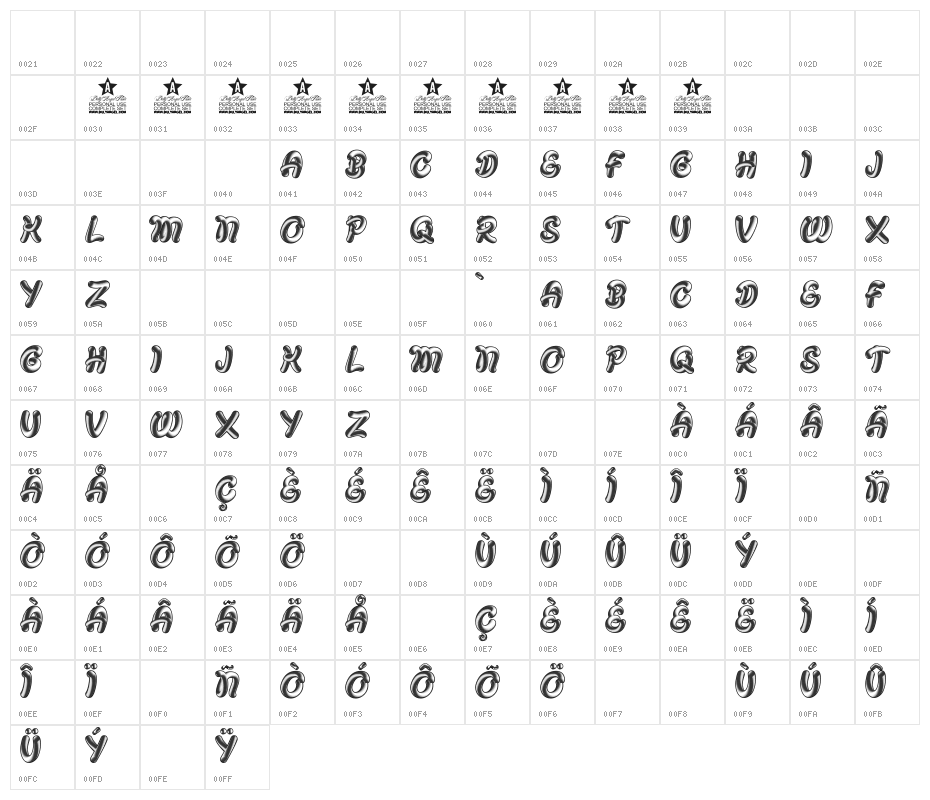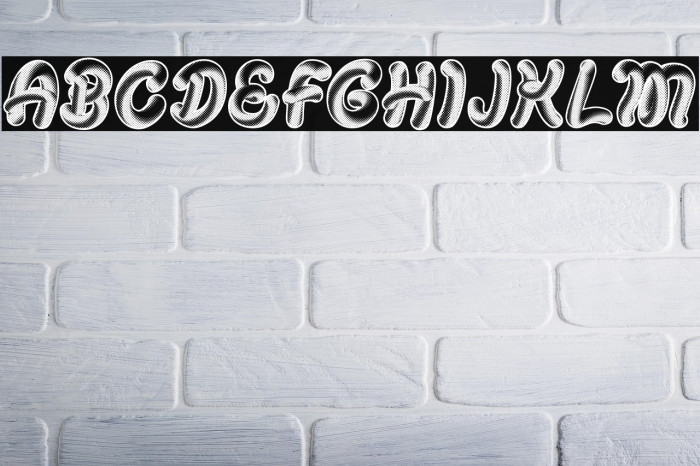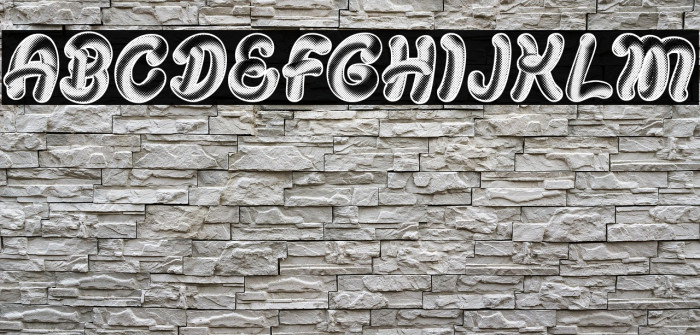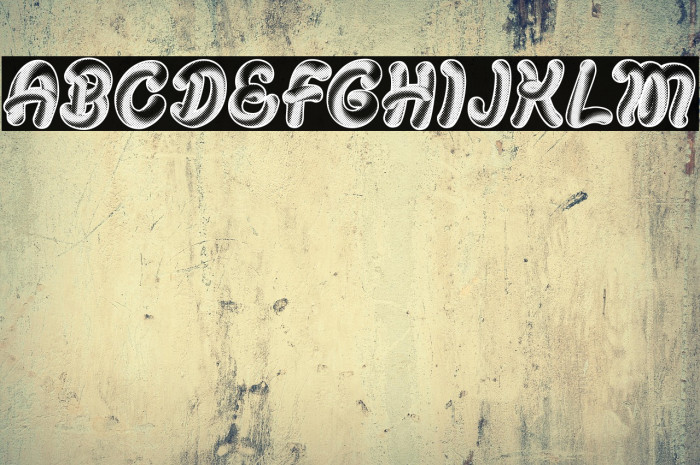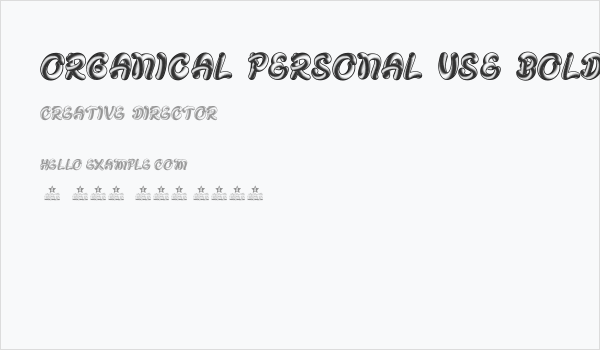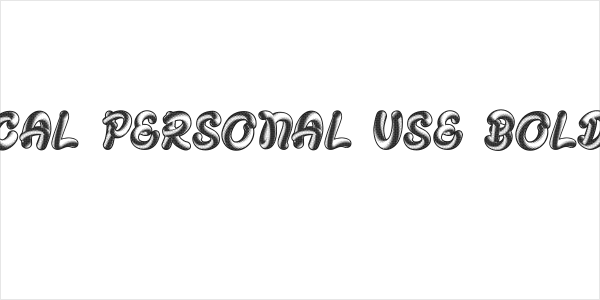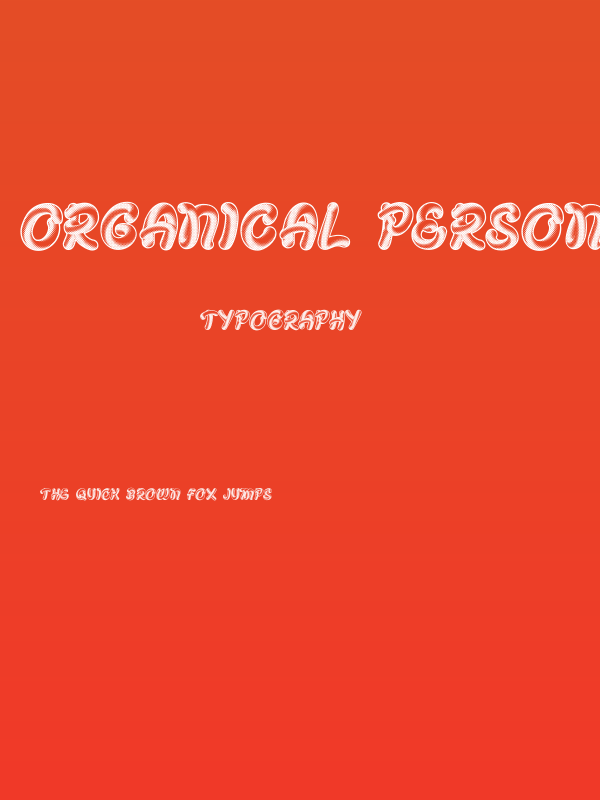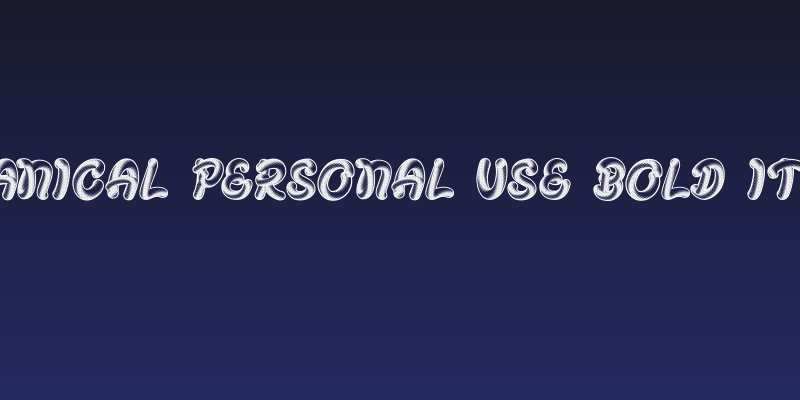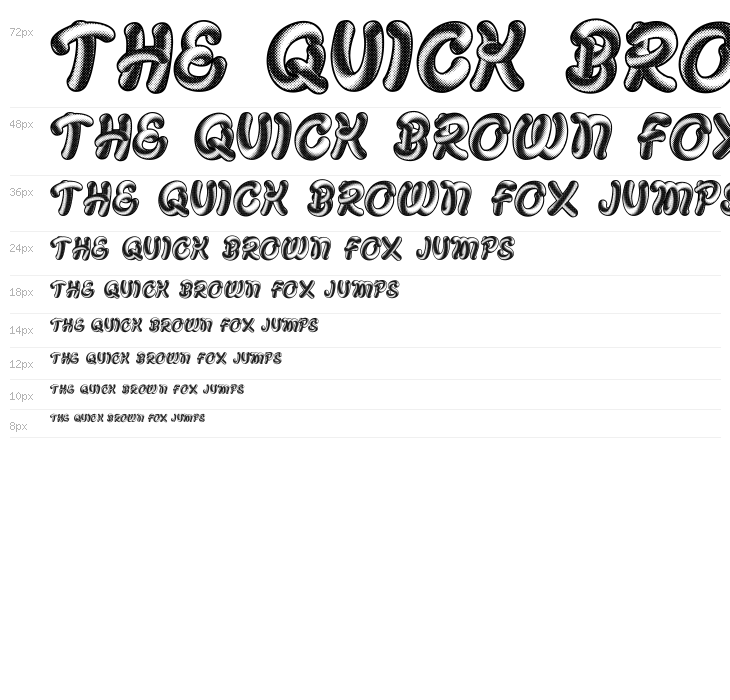
ORGANICAL PERSONAL USE Bold Italic Font
ORGANICAL PERSONAL USE Bold Italic Description
This font features a bold and italicized style with a unique, organic appearance. The letters are rounded and have a three-dimensional effect, giving them a playful and dynamic look. The shading within each character adds depth and a sense of movement, making the font stand out. Its decorative nature is enhanced by the use of bold strokes and italic slant, creating a lively and engaging visual experience. The font maintains a consistent style throughout, with each letter exhibiting a similar level of embellishment and curvature.
| Use Case | Logos, Posters, Branding |
| Proposed Projects | Ideal for creative projects such as posters, logos, and branding materials that require a bold and eye-catching typeface. |